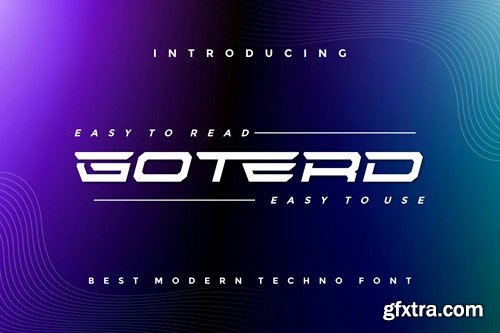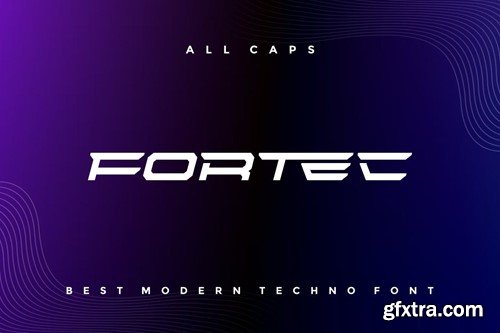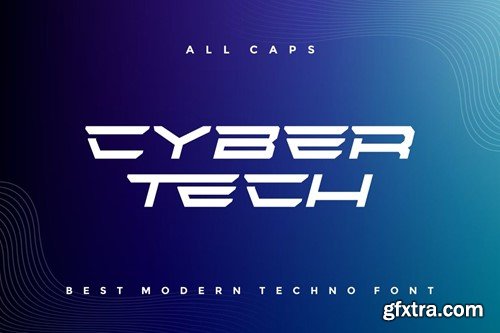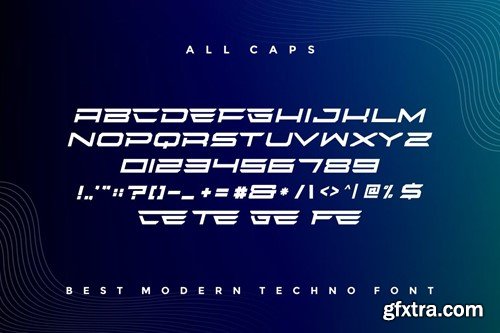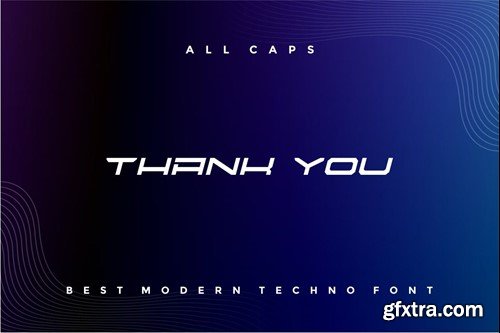
Goterd - 现代Techno字体D5K8BYD
Goterd - Modern Techno Font
Introducing our new product Goterd - Modern Techno Font Goterd is a bold, modern display font with playful flair, ideal for attention-grabbing headlines, logos, and diverse design projects. Versatile and readable in both digital and print, Goterd adds a dynamic touch to your message. availlable